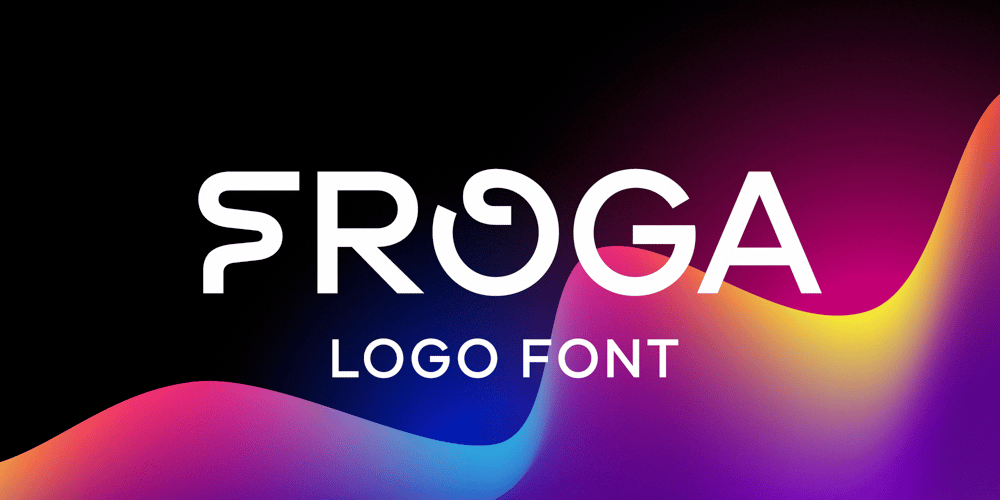
Froga
Froga font
Froga Font Family was designed by Roman Melikhov and published by Roman Melikhov. Froga contains 1 styles and family package options. Froga font is designed to create minimalistic logos, wordmarks, titles, taglines.The place of lowercase letters is taken by usual sans serif letters, in place of uppercase letters there are unusual letters. You can use unusual characters to emphasize separate letters in your text.Use Mixcase Unmixed font if you need suitable usual lowercase letters. It has similar proportions and the same weight.For any questions about the font please contact: arbuzzu@gmail.com